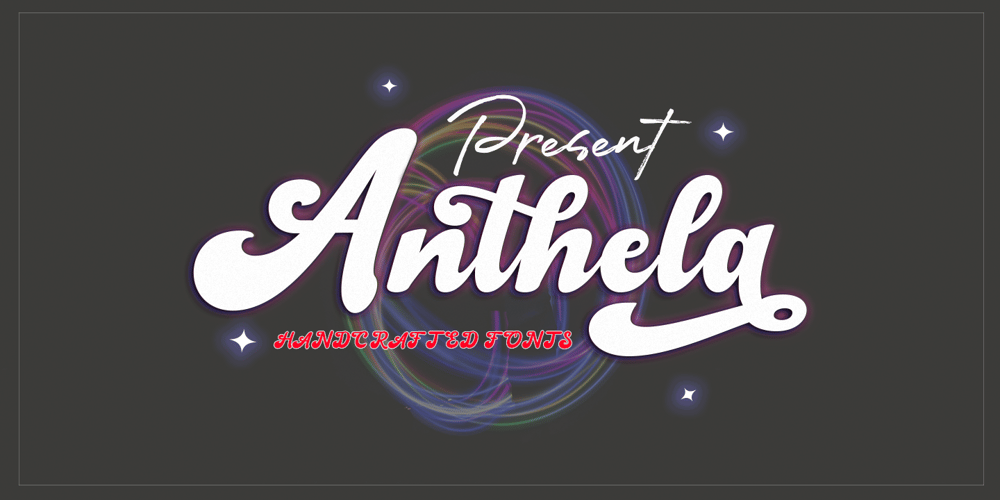
Anthela
Anthela font
Anthela Font Family was designed by Muhammad Iqram and published by Gloow Studio. Anthela contains 1 styles and family package options. Introducing, Anthela. A retro bold script which will bring you back to 70s feel. This typeface has the extrude version so you can create your retro effect font in ease. This font perfectly made to be applied especially in logo, and the other various formal forms such as invitations, labels, logos, magazines, books, greeting / wedding cards, packaging, fashion, make up, stationery, novels, labels or any type of advertising purpose.Features :uppercase & lowercasenumbers and punctuationmultilingualligaturesalternatesswashesPUA encodedWe highly recommend using a program that supports OpenType features and Glyphs panels like many of Adobe apps and Corel Draw, so you can see and access all Glyph variations.